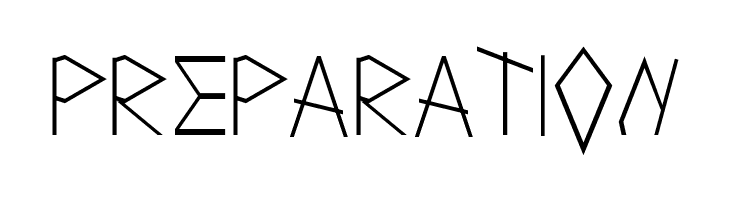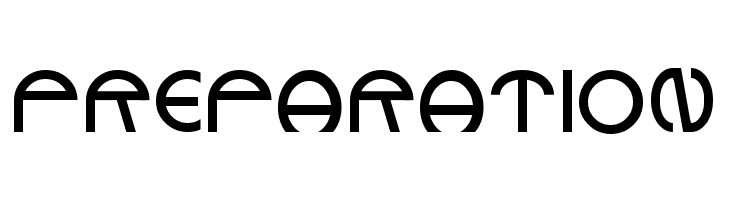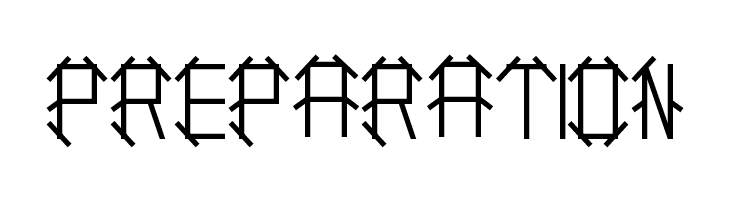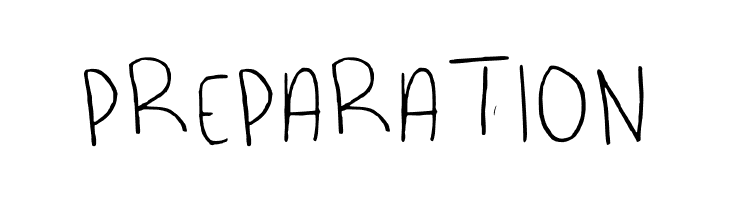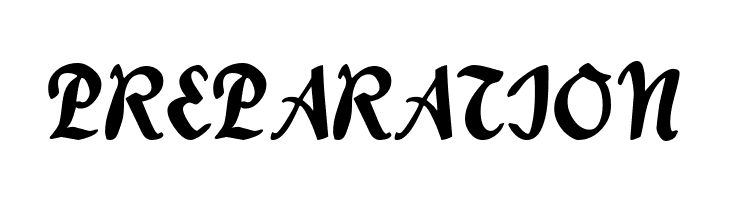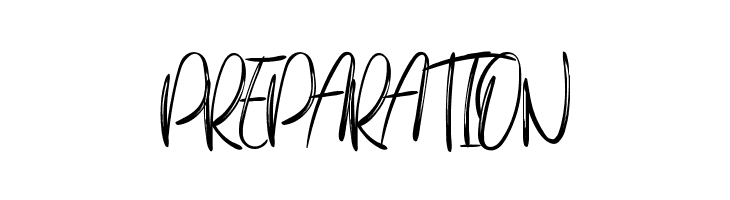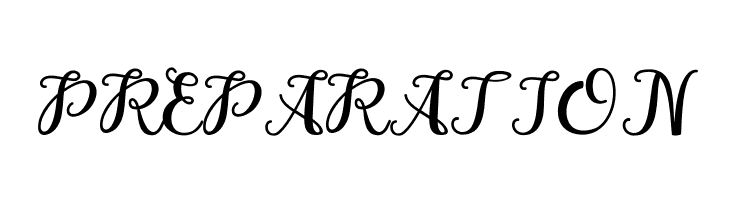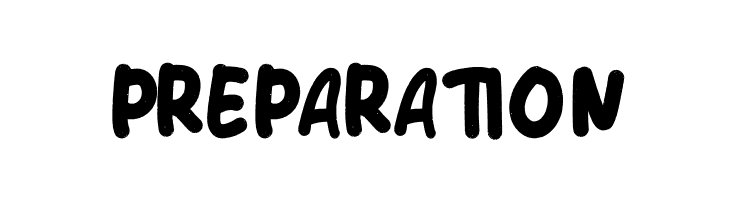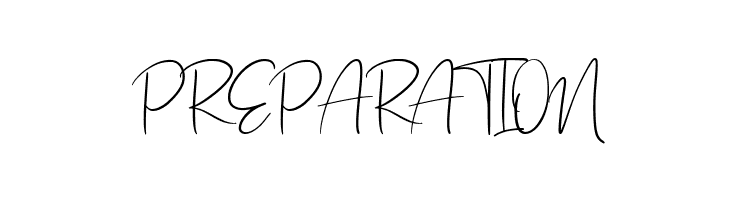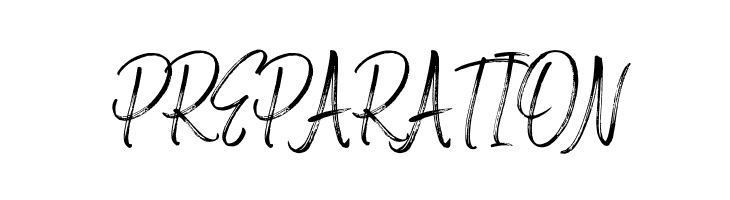
( Fonts by HansCo - Burhan Afif - Personal-use only. For commercial use please contact owner. ) A dynamic and expressive handwritten font with fluid, organic strokes. Download 26 Downloads@WebFont
( Fonts by Ibram Syah - Personal-use only. For commercial use please contact owner. ) A whimsical and decorative font with playful curves and elegant swirls. Download 33 Downloads@WebFont
Font by glyphstyle. For commercial use please contact the owner. ( NOTE: This demo font is for PERSONAL USE ONLY! But any donation are very appreciated. Paypal account for donation : https://www.paypal.me/dimasardhi full version: https://www.glyphstyle.net/holista/ contact us at styleglyph@gmail.com And follow my in ) A modern, sans-serif font with clean lines and balanced spacing. Download 167 Downloads@WebFont
( Fonts by D K ) A bold, playful font with a hand-drawn, cartoon-like style. Download 175 Downloads@WebFont
( Fonts by Green Adventure Studio - Ardi Parwito - Personal-use only. For commercial use please contact owner. ) A modern, handwritten cursive font with elegant, flowing lines. Download 63 Downloads@WebFont
( Holitter Studios ) A bold, geometric font with high contrast and Art Deco influences. Download 77 Downloads@WebFont
( Fonts by Holitter Studios - Personal-use only. For commercial use please contact owner. ) A modern, geometric font with bold, rounded characters and a futuristic style. Download 73 Downloads@WebFont
( Holitter Studios - Biffe de Holitter - holitter.wix.com/holitter ) A modern, geometric font with sharp angles and elegant curves. Download 81 Downloads@WebFont
( Holitter Studios - Biffe de Holitter - holitter.wix.com/holitter ) A modern, hollow font with high contrast and geometric design. Download 88 Downloads@WebFont
( Fonts by Holitter Studios - Personal-use only. For commercial use please contact owner. ) A bold, geometric font with angular, arrow-like extensions for a futuristic look. Download 63 Downloads@WebFont
( Fonts by Holitter Studios - Personal-use only. For commercial use please contact owner. ) A modern, angular font with a unique shadow effect for a 3D appearance. Download 50 Downloads@WebFont
( holitter.wix.com/holitter ) An edgy, spiky font with a gothic, decorative style. Download 138 Downloads@WebFont
( Holitter Studios ) A bold, angular font with sharp edges and geometric elements. Download 47 Downloads@WebFont
( Fonts by www.fugit-tempus.de ) A bold, dynamic script font with elegant, flowing letterforms. Download 2365 Downloads@WebFont
( Fonts by Endri Sulistyawan - Personal-use only. For commercial use please contact owner. ) A playful, spooky font with jagged, uneven characters perfect for Halloween themes. Download 148 Downloads@WebFont
( Fonts by Sarif Letter - Personal-use only. For commercial use please contact owner. ) A bold, brush-style font with a playful, spooky vibe. Download 30 Downloads@WebFont
( Fonts by Edric Studio - Personal-use only. For commercial use please contact owner. ) A lively and expressive handwritten font with fluid, dynamic strokes and cursive connections. Download 42 Downloads@WebFont
( Fonts by Creative Killer ) A playful and whimsical script font with smooth, interconnected letters. Download 105 Downloads@WebFont
( Fonts by Manfred Klein. Free for private and charity use. Free for commercial with donation to organizations ) A classic serif font with elegant detailing and balanced proportions. Download 1618 Downloads@WebFont
( Fonts by Hatf Type ) A bold, playful font with a hand-drawn, whimsical style. Download 385 Downloads@WebFont
( Intellecta Design - Paulo W - new.myfonts.com/foundry/Intellecta_Design/?refby=paulow ) A decorative font with intricate flourishes and a historical charm. Download 81 Downloads@WebFont
( Fonts by Intellecta Design ) An ornate Blackletter font with intricate, medieval-style letterforms. Download 309 Downloads@WebFont
( Fonts by Multype Studio - Mulia Yanto - Personal-use only. For commercial use please contact owner. ) A playful, handwritten cursive font with smooth, connected strokes. Download 72 Downloads@WebFont
( Fonts by a Max Infeld - XEROGRAPHER FONTS - xerographer.blogspot.com . Personal-use only. For commercial use please contact owner. ) A bold, distressed font with a grunge aesthetic. Download 292 Downloads@WebFont
( Dani Foster Herring - dani3d.com/ ) A decorative font with floral embellishments and whimsical, artistic style. Download 44 Downloads@WebFont
( Fonts by Maulana Creative - Gilang Maulana - Personal-use only. For commercial use please contact owner. ) A dynamic handwritten font with fluid, continuous strokes and a modern flair. Download 72 Downloads@WebFont
( Fonts by Alfaraby Studio - Personal-use only. For commercial use please contact owner. ) A playful and elegant script font with smooth, flowing lines and decorative flourishes. Download 44 Downloads@WebFont
( Fonts by Creatype Studio - Rian Rahardi - Personal-use only. For commercial use please contact owner. ) A playful, bold handwritten font with thick, rounded strokes. Download 35 Downloads@WebFont